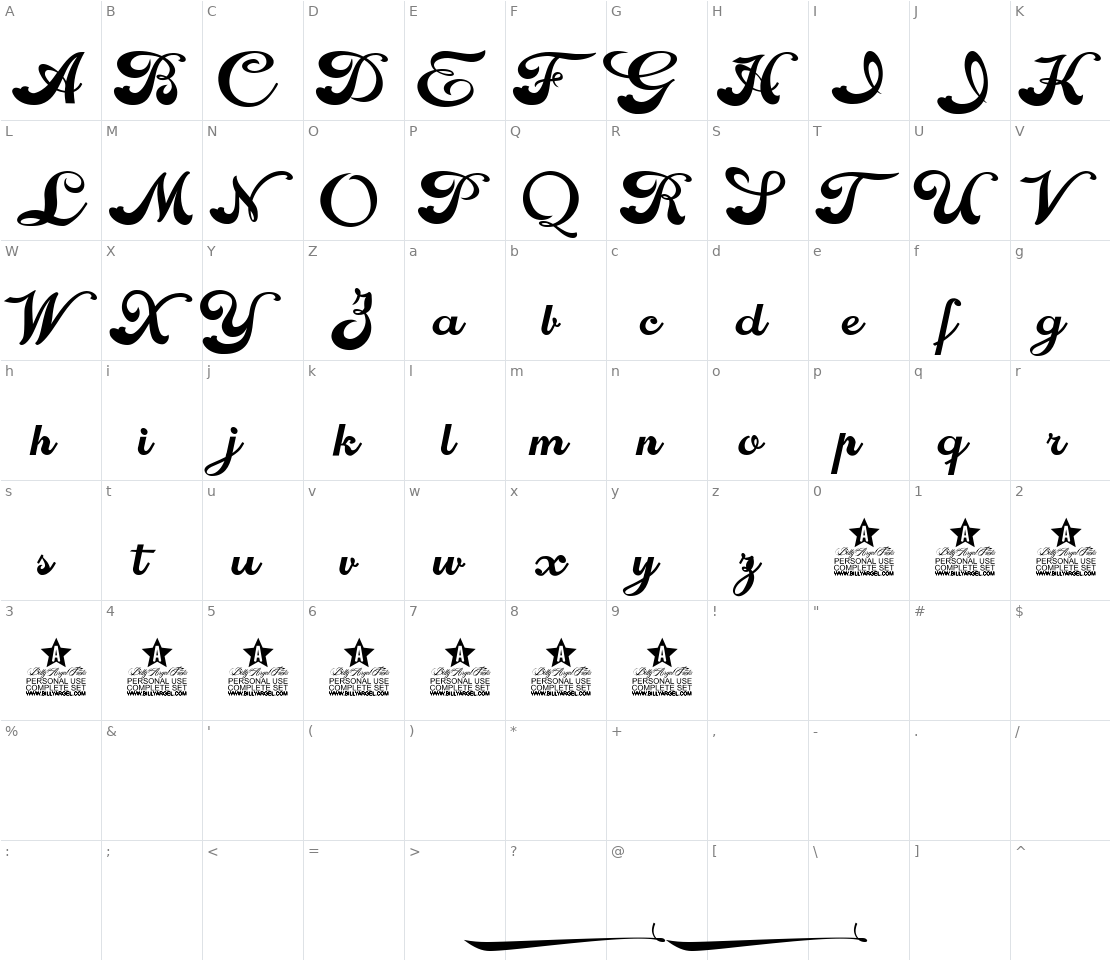
Worldwide
Worldwide is a bold, connected script from Billy Argel with thick strokes and a loose, flowing rhythm that feels like confident hand-lettering from a vintage sign shop. The retro energy comes through in its weight and casual slant rather than any specific era of ornamentation, keeping it versatile across headlines, logos, and packaging. It reads best at large sizes where the heavy connected letterforms can show off their natural momentum.